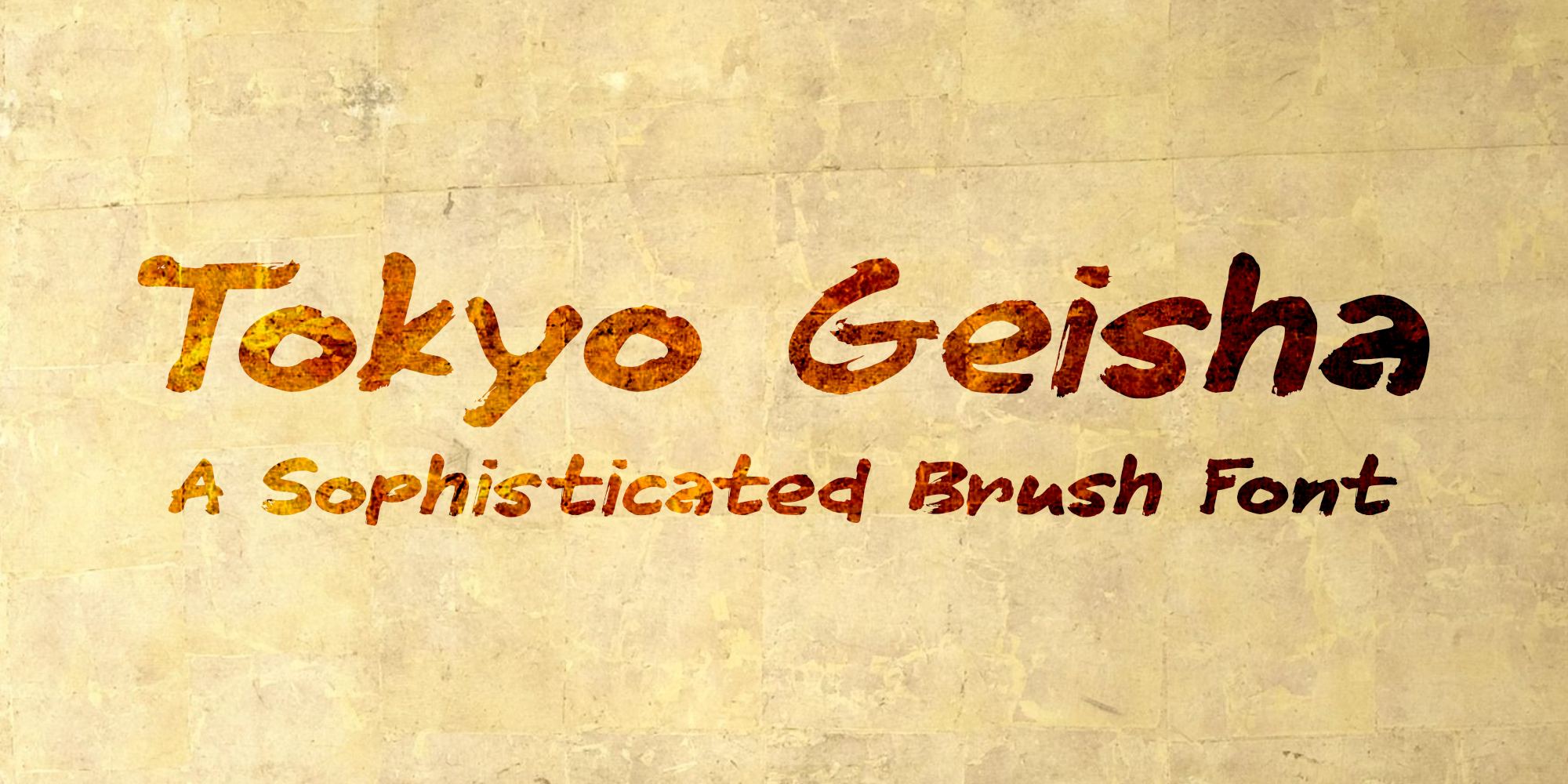
Tokyo Geisha Font is perfect for various applications including Japanese restaurant branding, Asian cultural events, anime and manga titles, sushi bar logos, martial arts studios, zen meditation centers, oriental spa designs, Asian fusion packaging, cultural festival posters, and East Asian tourism campaigns.
What makes Tokyo Geisha Font so exciting is its authentic capture of traditional Japanese aesthetic combined with modern design sensibilities. This captivating typeface features elegant brushstroke-inspired letterforms with delicate curves and flowing lines that evoke the grace and beauty of traditional Japanese calligraphy. The font's harmonious character and cultural authenticity make it ideal for brands that want to convey Eastern elegance, tranquility, and refined sophistication to audiences who appreciate Asian cultural heritage and artistry.
Tokyo Geisha Font family includes multiple weights and styles: Light, Regular, Medium, Bold, Brush, Condensed, Extended, and graceful Italic variants. Each family member maintains the font's signature Eastern elegance while offering different levels of visual impact and stylistic flexibility for diverse cultural and commercial applications.
The Tokyo Geisha Font Free Download provides designers with access to a culturally-inspired typeface that excels in Asian-themed projects and multicultural branding. Whether you're creating authentic Japanese restaurant identities, designing cultural event materials, or developing Eastern-inspired marketing campaigns, this font delivers the visual authenticity needed to resonate with both Asian communities and enthusiasts of Eastern culture. Its traditional styling and contemporary adaptation make it particularly effective for businesses serving Asian cuisine, wellness services, and cultural experiences.
Typography specialists will recognize the careful balance between cultural authenticity and modern functionality in Tokyo Geisha Font's construction. The font features optimized character spacing, smooth flowing curves, and meticulously crafted details that ensure excellent readability while maintaining its distinctive Eastern character. From intimate menu designs to large-scale environmental graphics, this typeface maintains its cultural integrity across all applications.
For digital designers working in hospitality, wellness, and cultural sectors, Tokyo Geisha Font provides exceptional performance in themed applications and multicultural content. The font's technical specifications are optimized for both digital displays and traditional print media while preserving the delicate brushstroke qualities that define its character.
Creative professionals in food service, wellness, entertainment, and cultural industries will find Tokyo Geisha Font to be an essential tool for projects requiring authentic Eastern aesthetic appeal.